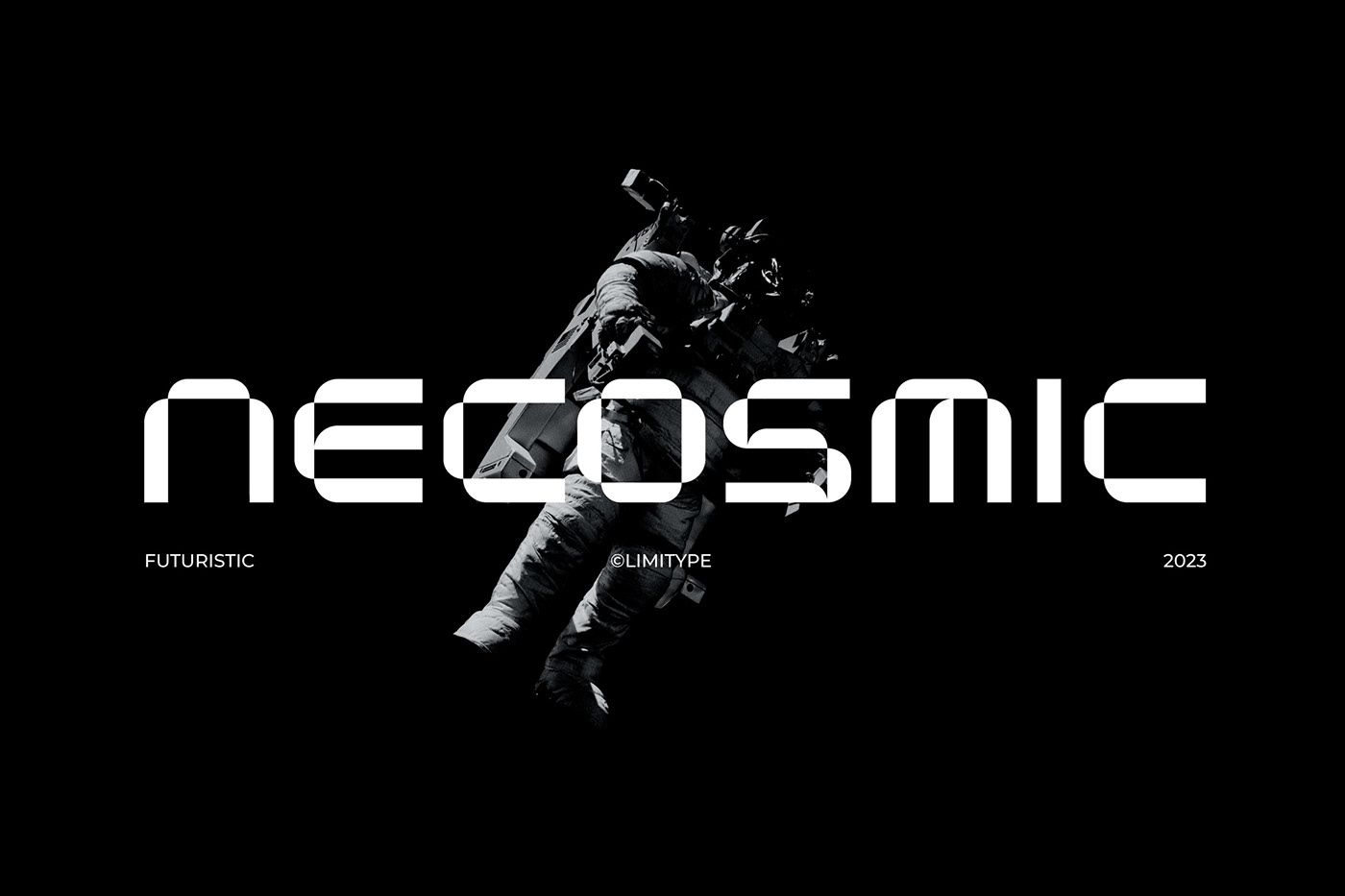
Necosmic - Futuristic Font
Elevate your design to the next level with Necosmic – a display font that radiates futuristic and modern style. Specifically designed to seamlessly integrate into technology, futuristic, and outer space themes, each character reflects innovation, creating…